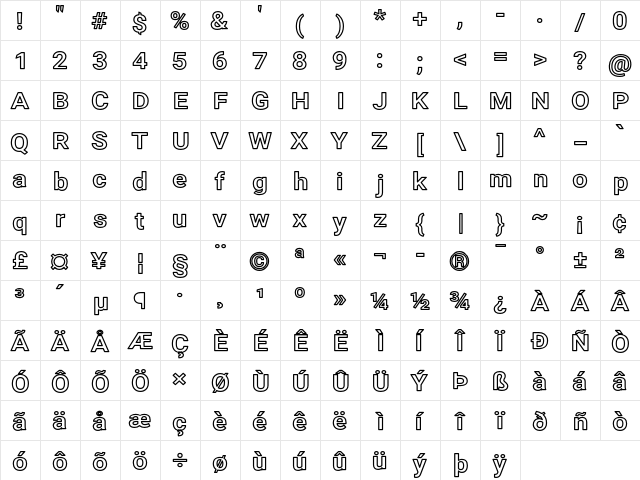
Asimov WidOu
Design Context for Asimov Typeface
Asimov offers clean, dependable letterforms without strong stylistic allegiance, making it a practical choice for designers who need flexibility.
Pro Tip: Pair Asimov with a font of contrasting weight or personality to build a more expressive typographic hierarchy.